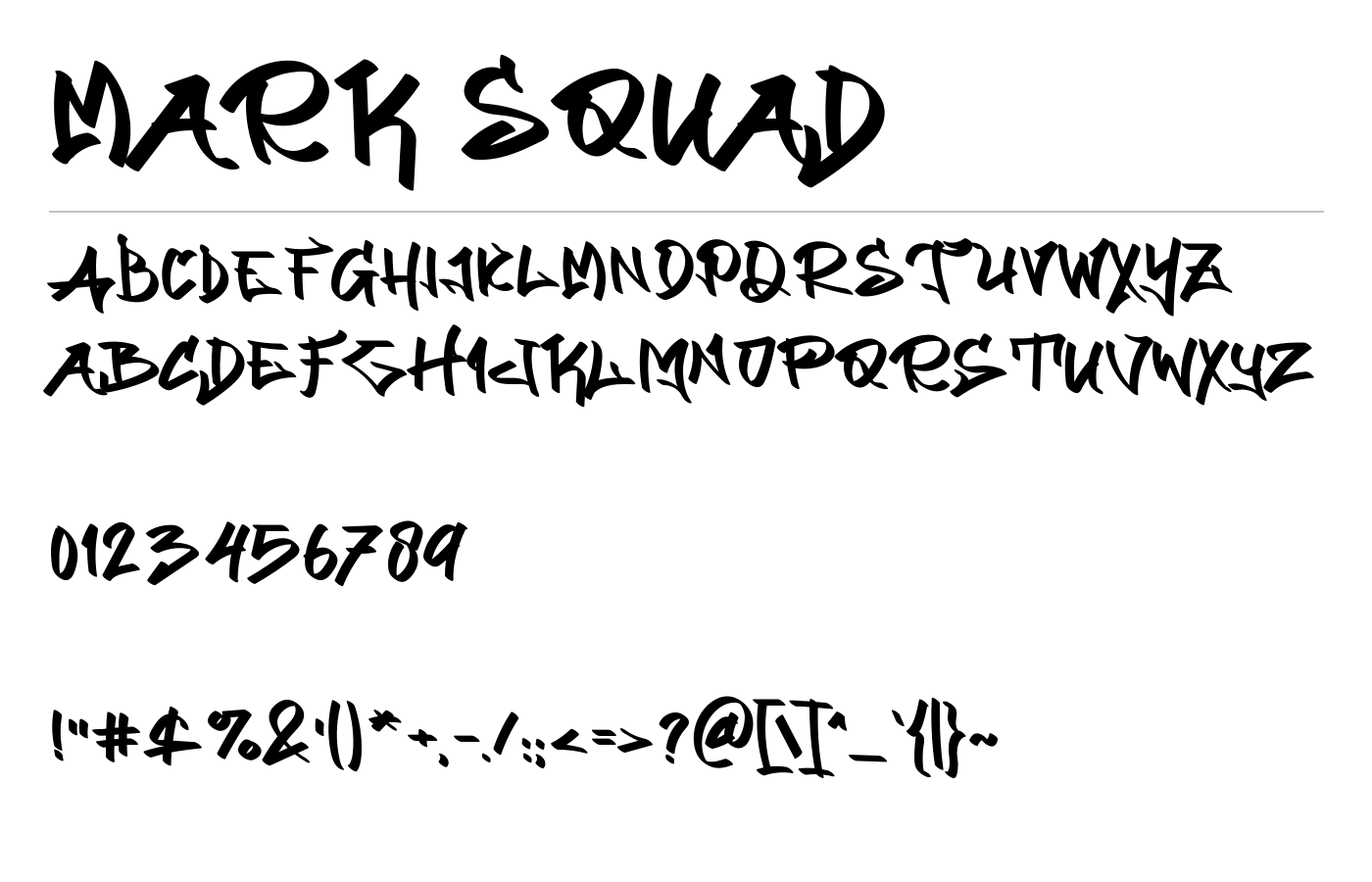
Mark Squad is a bold, expressive handwritten font with an urban, graffiti-inspired style. Its energetic strokes and irregular shapes give it a strong, edgy personality, making it ideal for streetwear branding, posters, and creative projects that want to convey a youthful and rebellious vibe. This font shines in display use where its distinctive character can truly stand out.
Mark Squad Font
About Mark Squad Font
| Font family | Mark Squad Font |
| Designer | Sahirul Sugih |